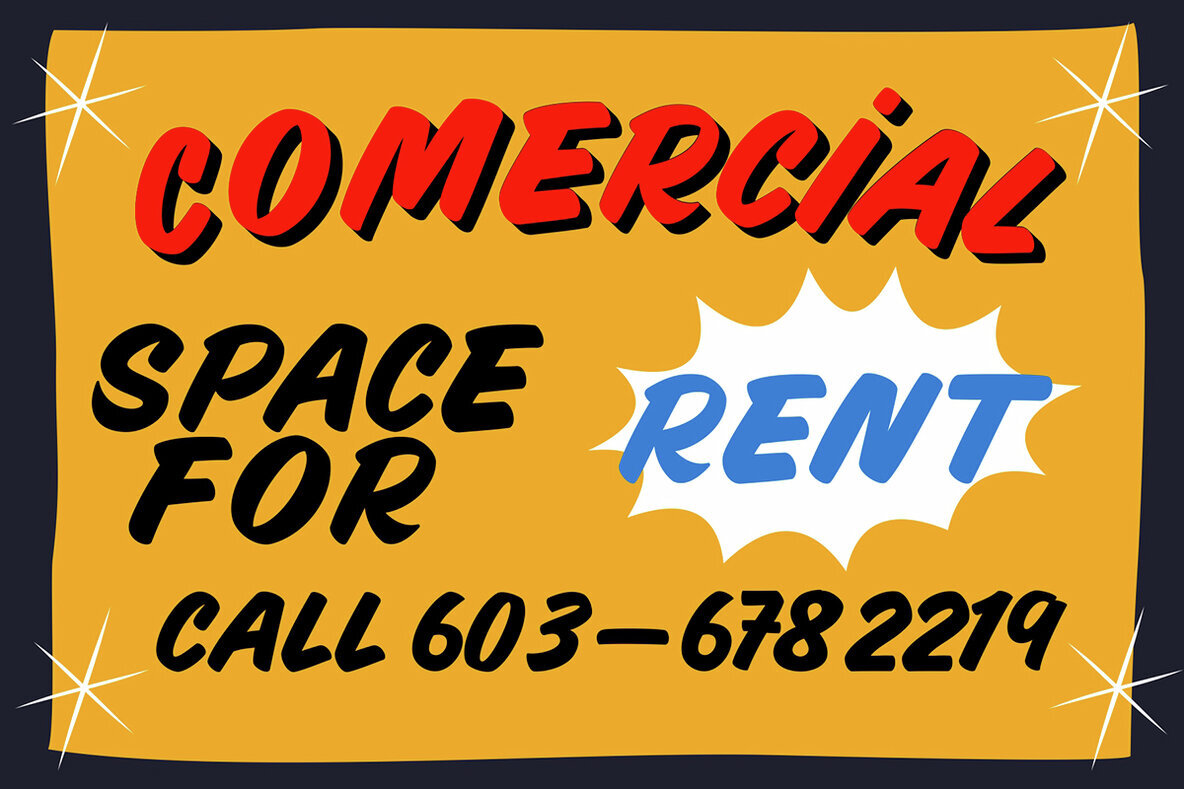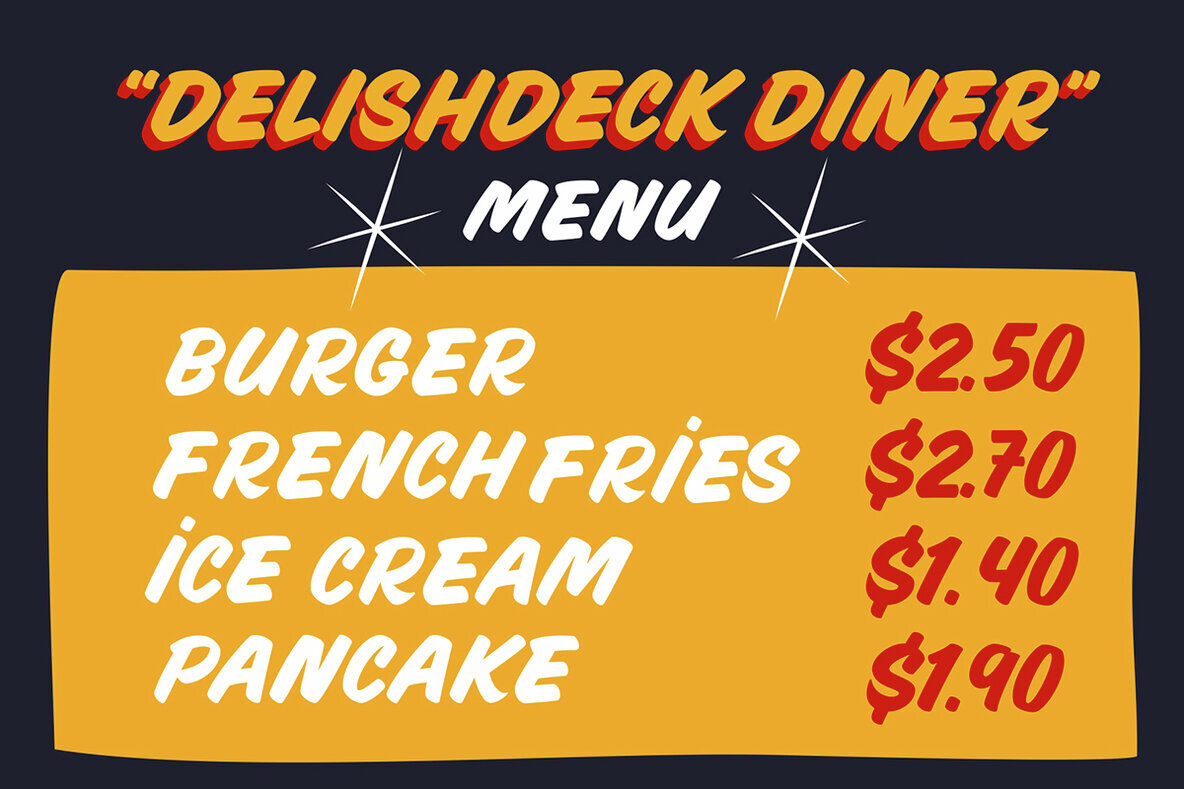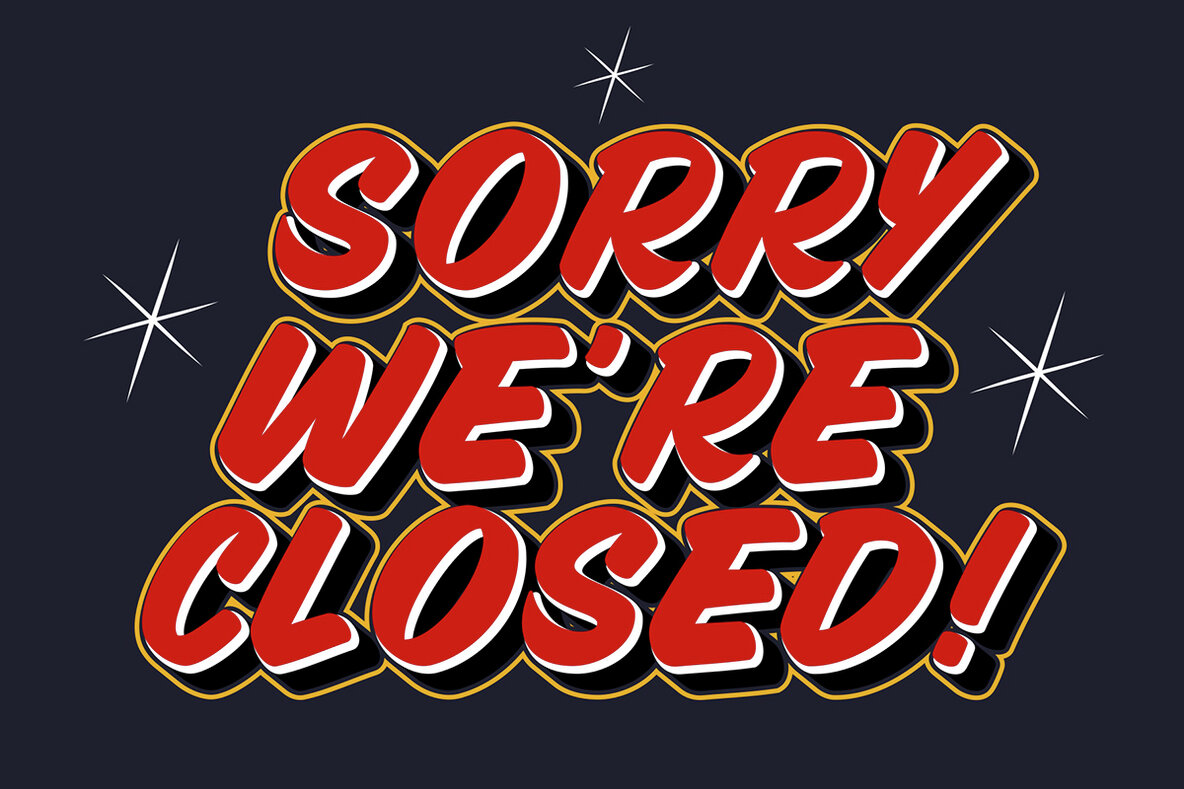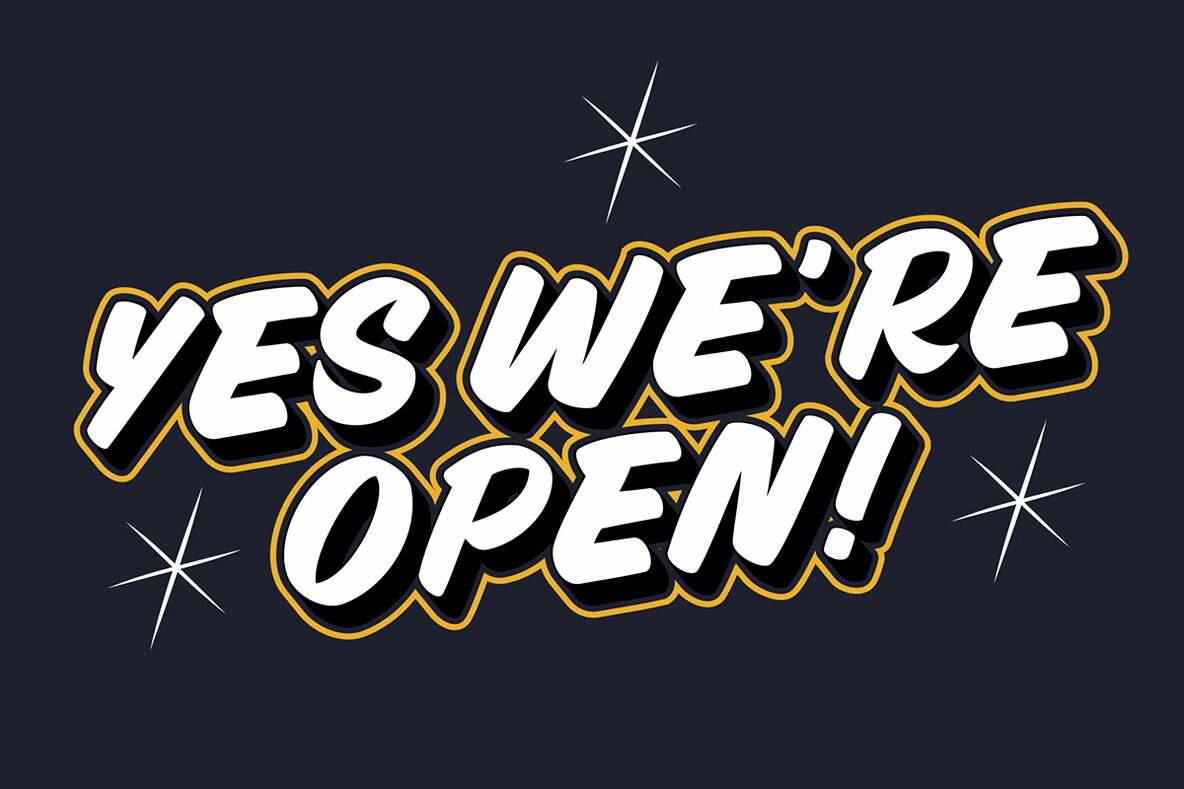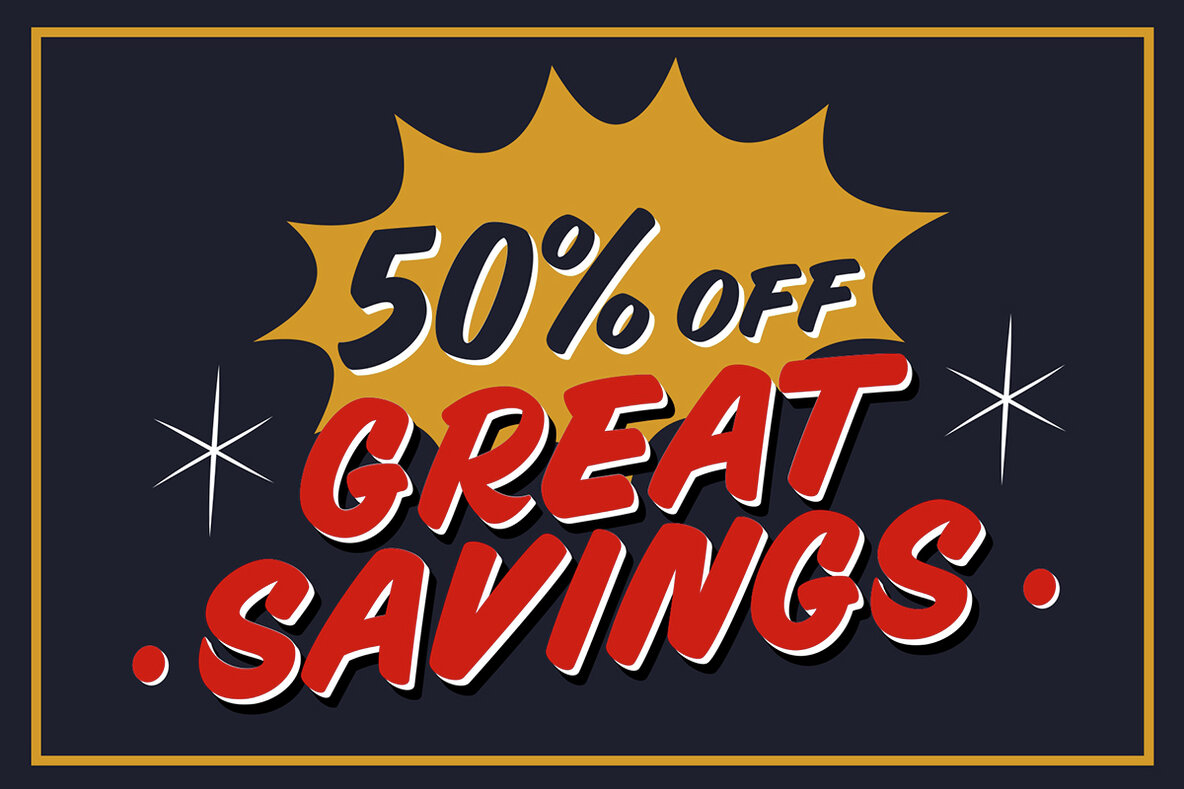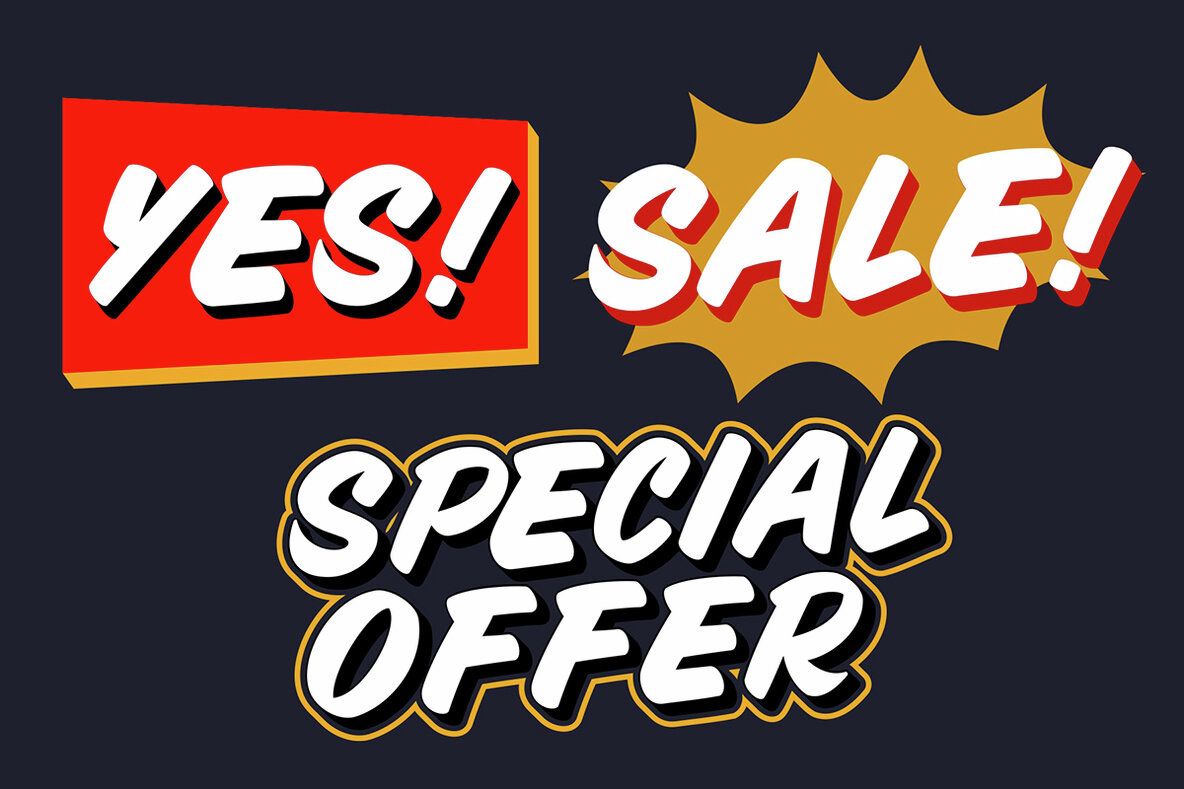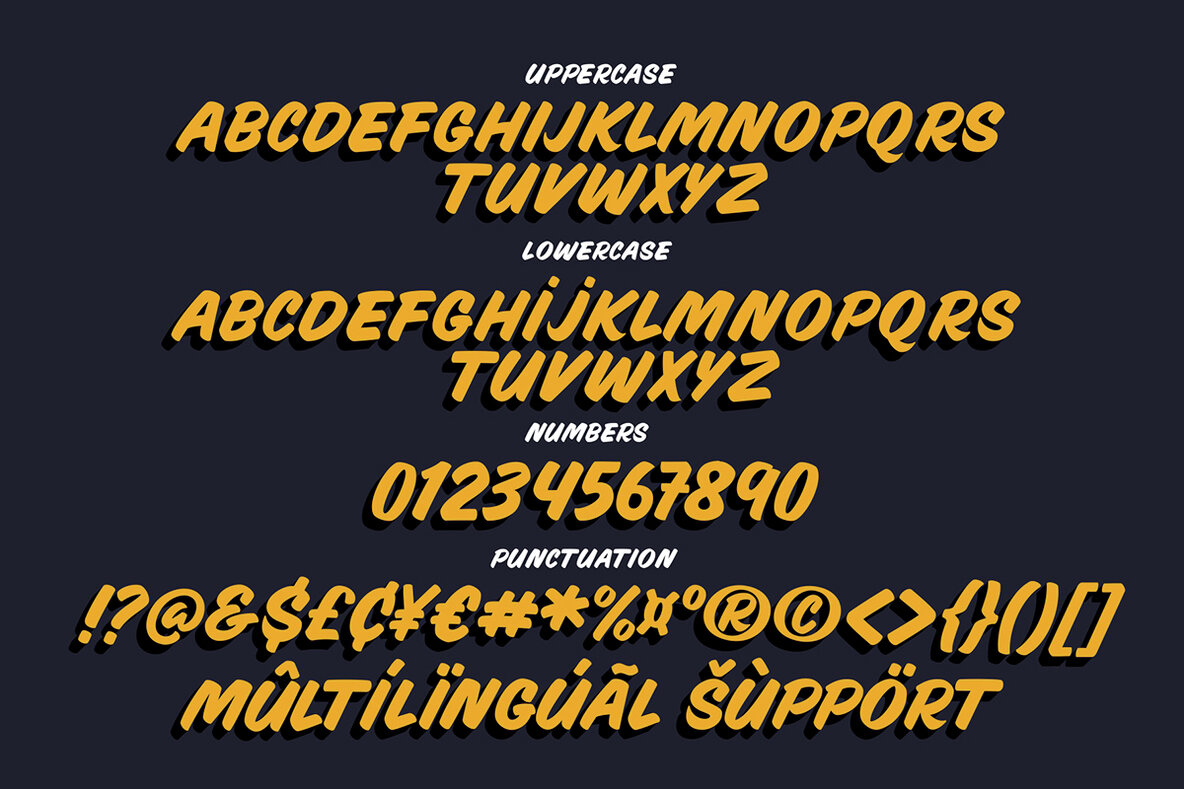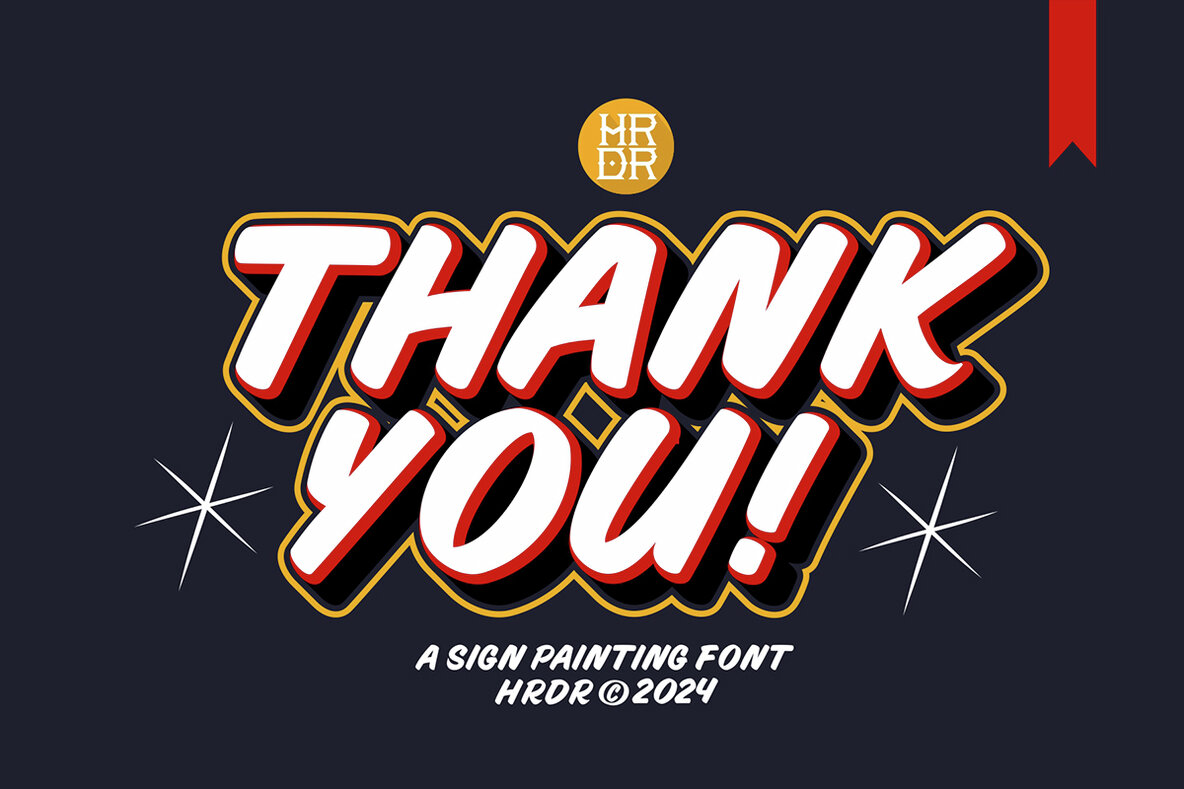
Sign Labeling Font
SIGN LABELING
Sign Labeling is an all-caps font designed for sign painting, ideal for creating handwritten chalkboard signs in restaurants, bars, shops, markets, and more. This versatile font also works perfectly for posters, product designs, and labels, adding a personalized and handcrafted touch to your projects.
It includes a complete set of uppercase and lowercase letters, ligatures, multilingual symbols, numerals, and punctuation. This comprehensive character set ensures that you have everything you need to create dynamic and eye-catching designs that stand out in both digital and print formats.